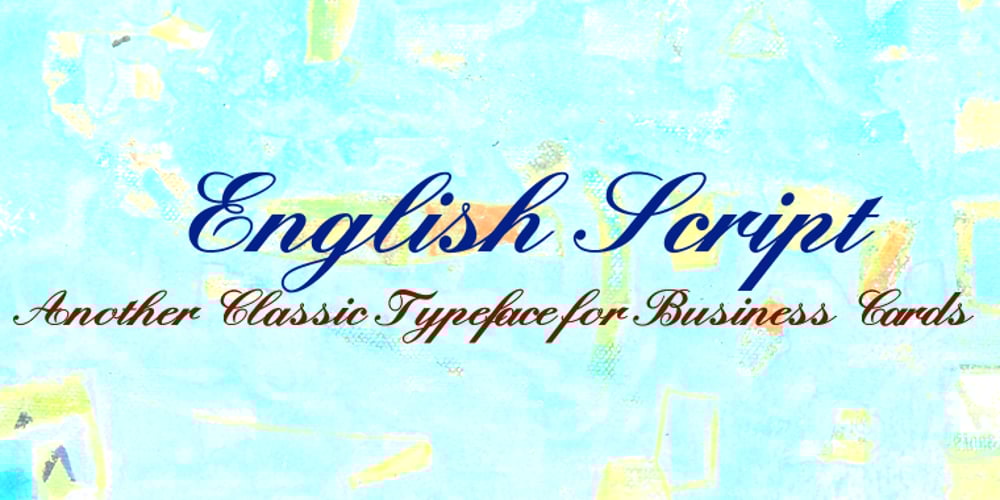
English Script
English Script font
English Script Font Family was designed by Gert Wiescher and published by Wiescher Design. English Script contains 1 styles and family package options. English Script is the classic Spencerian English script. I always wanted to do one of these; now finally I did. Your classical designer Gert Wiescher